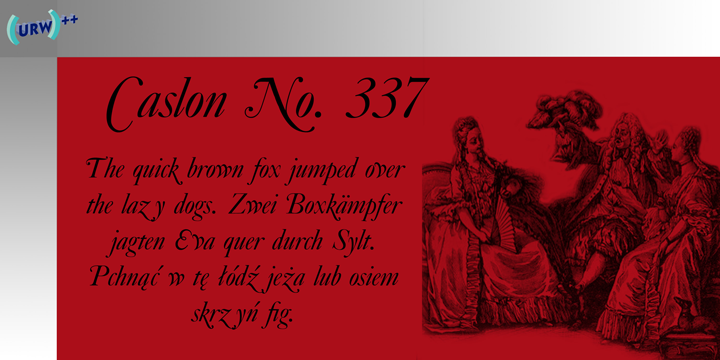
With its elegant serifs and beautifully proportioned letterforms, Caslon No337 Font brings a sense of history and refinement to your designs. It's ideal for projects that need to convey a sense of tradition, readability, and elegance, making it a great choice for luxury marketing materials, academic publications, and vintage-style branding.
Caslon No337 Font Free Download supports multilingual characters, making it suitable for global projects. Its legible design ensures readability across both print and digital formats, making it versatile for a wide range of creative applications.